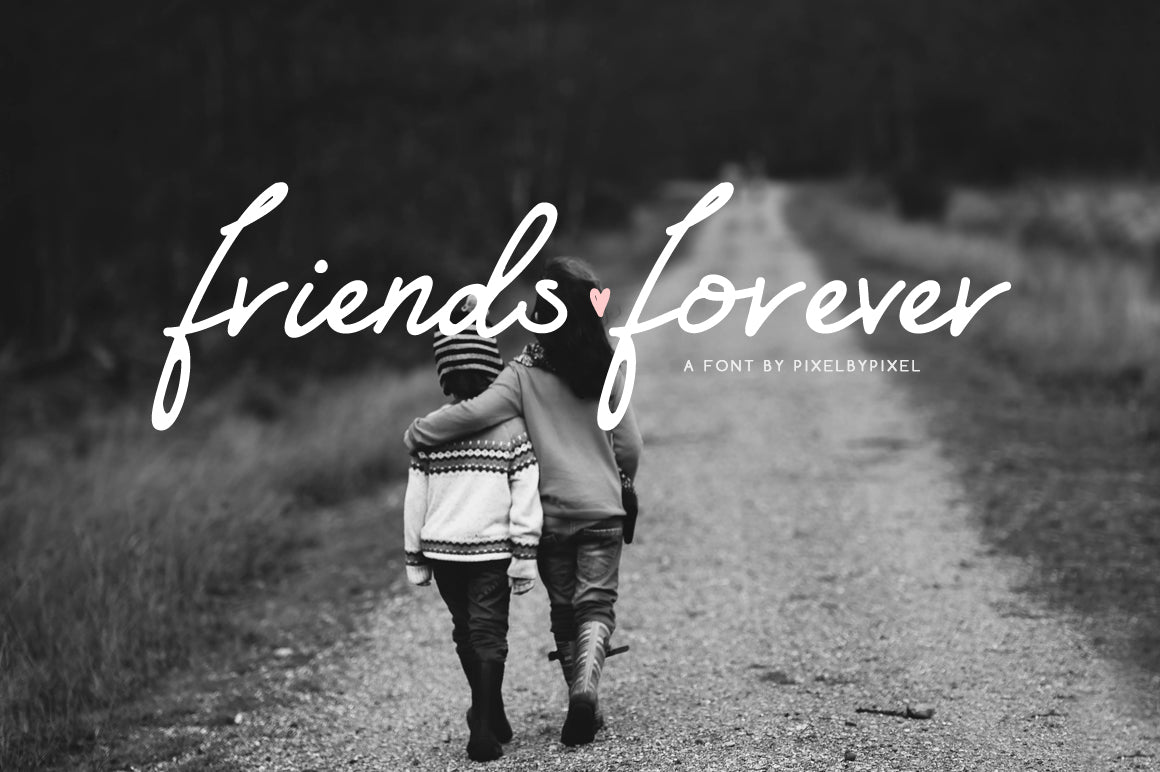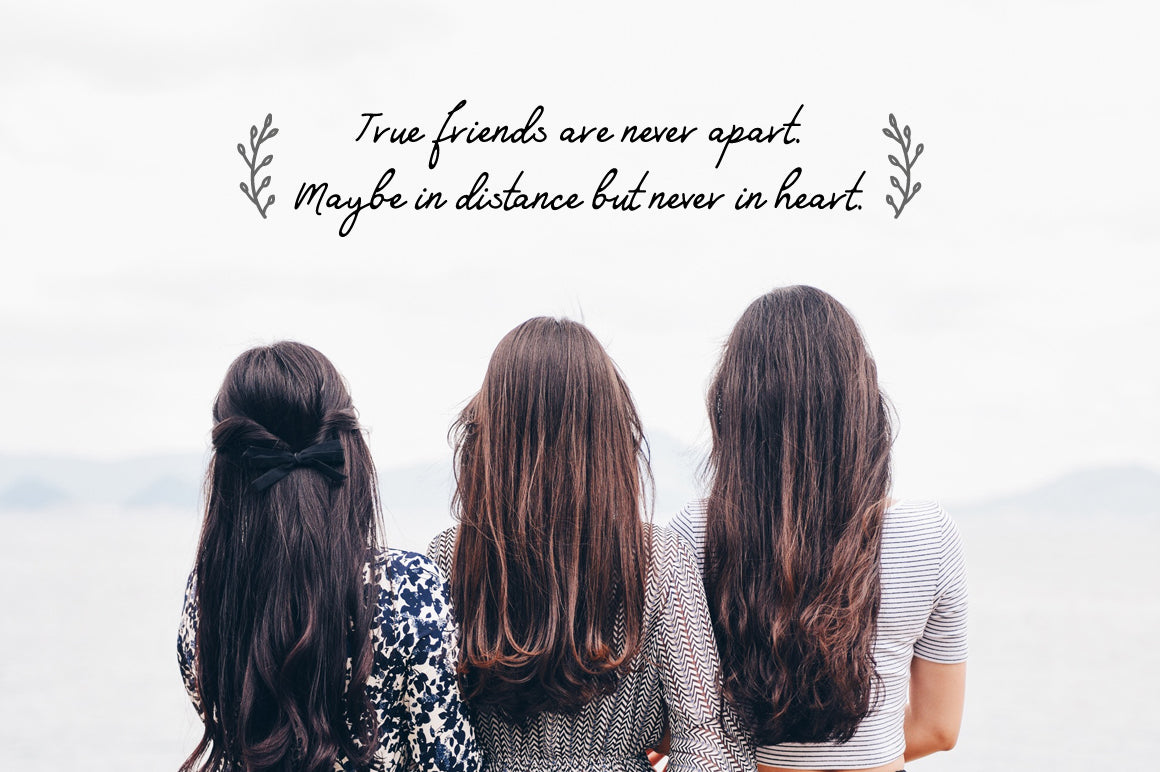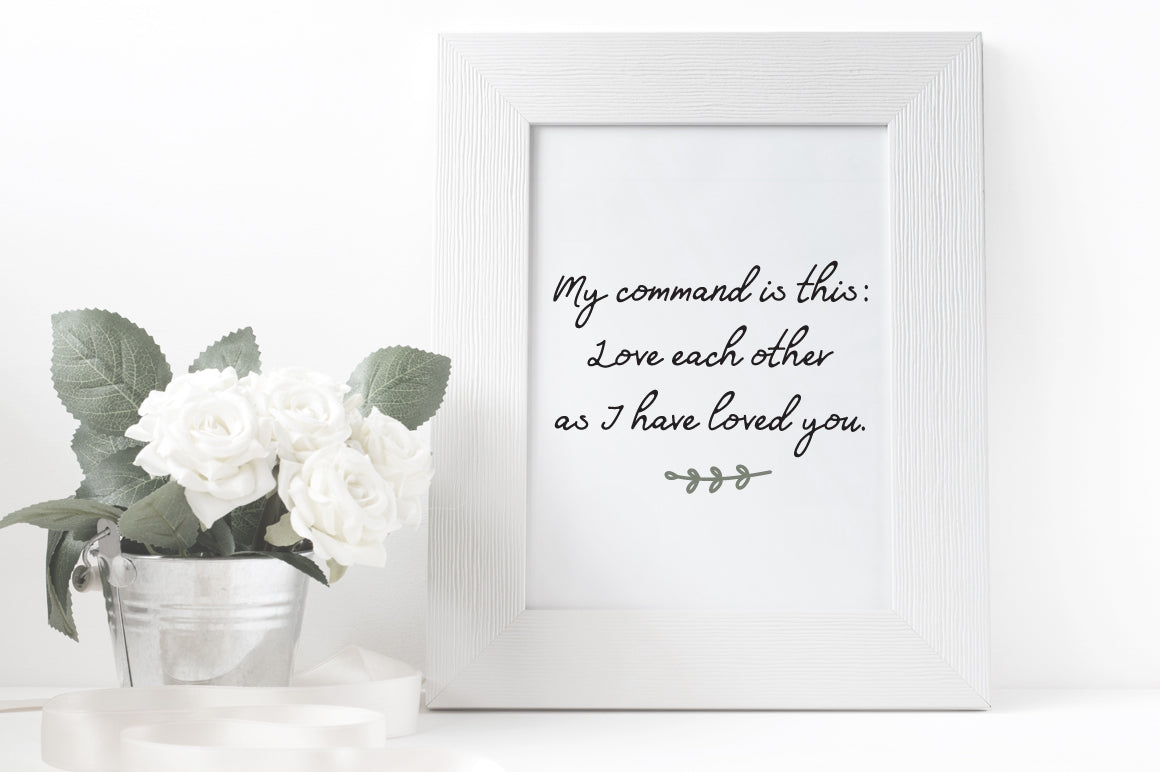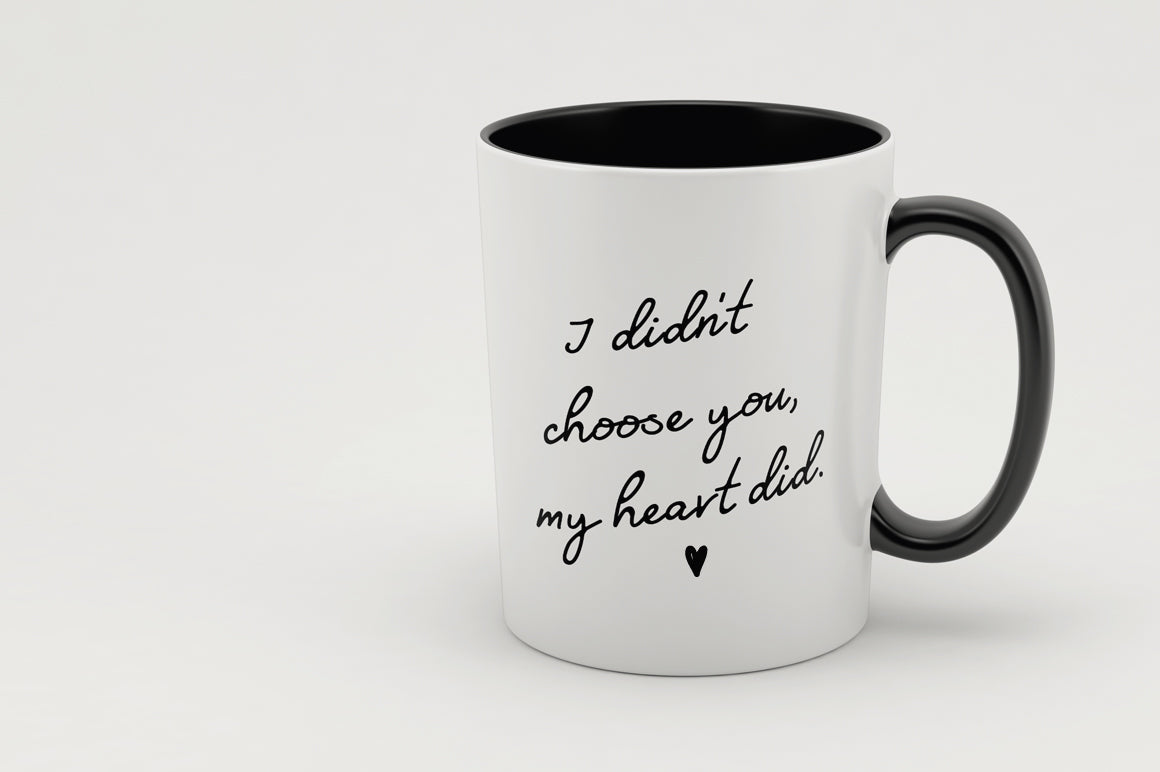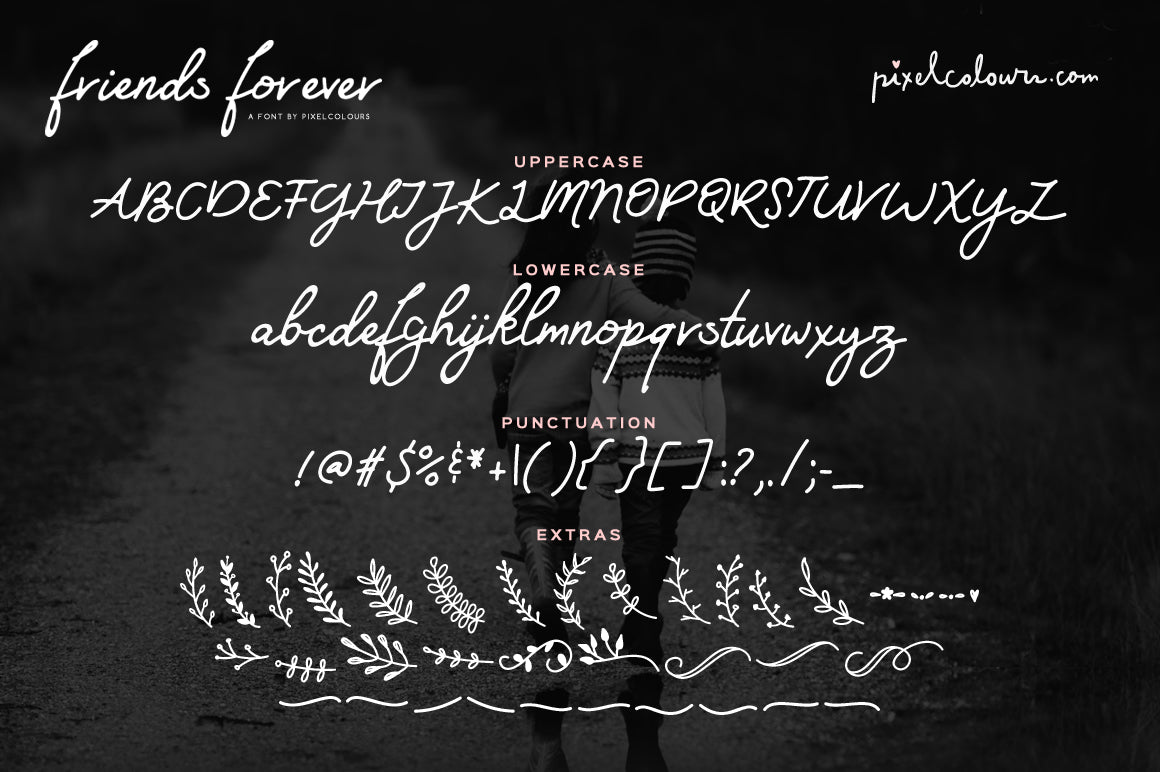
Friends Forever Font
Friends Forever Font is an imperfect girly script font that includes floral elements for decoration to create pretty logos and designs.
- Friends Forever: the script font
- Friends Forever Extras: floral elements & swashes